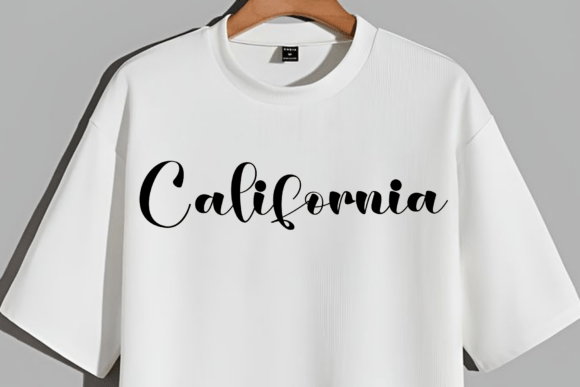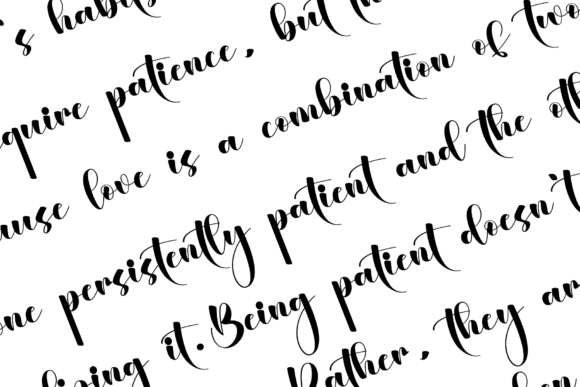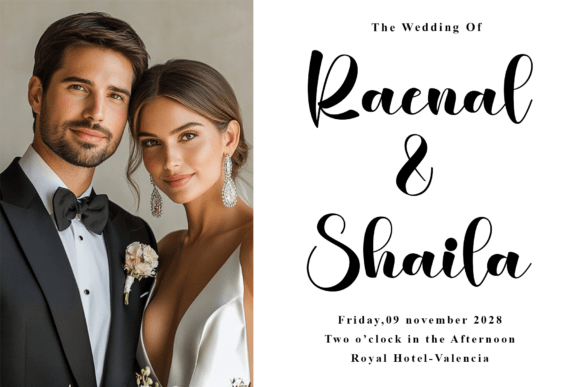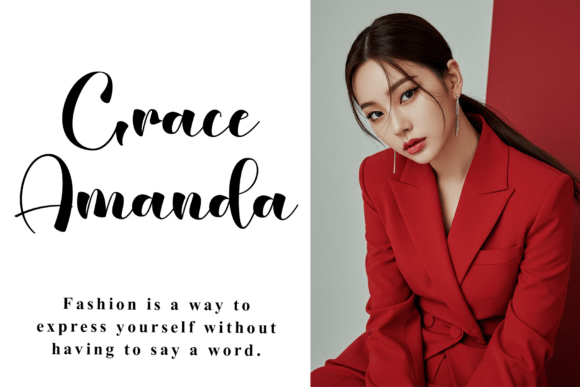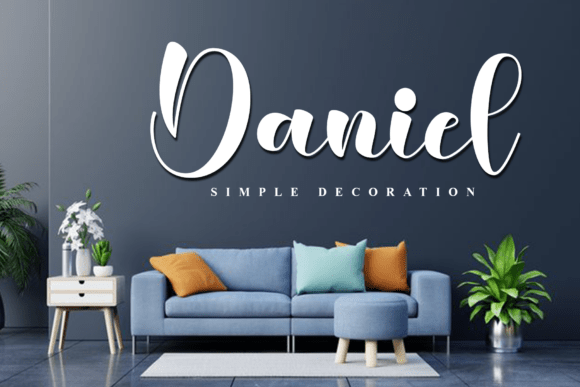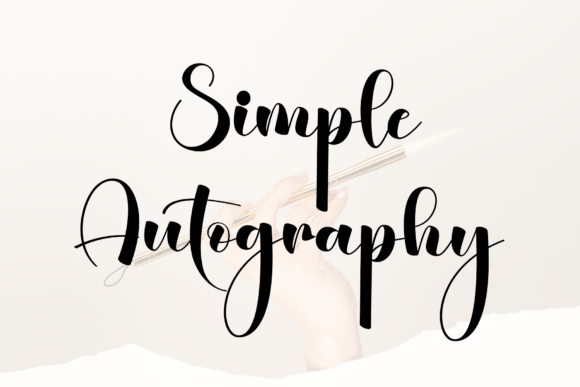
Introducing Darkline Font: The Epitome of Luxurious Handwritten Elegance
In the realm of typography, few fonts manage to convey the perfect blend of elegance, confidence, and professionalism. Darkline Font is one such exceptional typeface that effortlessly exudes sophistication and refinement. This luxurious handwritten script font is meticulously crafted to make a lasting impression, making it an ideal choice for upscale branding, wedding invitations, beauty packaging, and signature-style logos.
The Characteristics of Darkline Font
Darkline Font boasts smooth curves, high-contrast strokes, and graceful swashes that collectively contribute to its majestic appearance. The fluidity of its handwritten strokes gives it a personal touch, while the high contrast between thick and thin lines adds a level of sophistication that’s hard to match. The inclusion of elegant swashes further enhances its decorative appeal, allowing designers to add a touch of flair to their creations.
Perfect Balance of Modern Sophistication and Handwritten Charm
What sets Darkline apart is its ability to strike the perfect balance between modern sophistication and handwritten charm. In an era where digital designs often lean towards minimalism, Darkline offers a refreshing departure with its luxurious feel. It’s a font that understands the nuances of high-end design, making it suitable for projects that demand a level of refinement and poise.
Darkline Font’s versatility is one of its most compelling attributes. Whether you’re tasked with creating a high-end visual identity, crafting beautiful wedding invitations, designing packaging for a beauty brand, or conceptualizing a signature-style logo, Darkline proves to be an invaluable asset. Its adaptability ensures that it can be seamlessly integrated into various design projects, always lending an air of elegance and sophistication.
PUA-Encoded for Ease of Use
Understanding the needs of designers, Darkline Font comes PUA-encoded. This feature allows for effortless access to all glyphs, swashes, and alternate characters, making the design process smoother and more efficient. The PUA encoding ensures that users can easily navigate through the font’s extensive features without any hassle, thereby streamlining the creative process.
Adding Refinement to Your Designs
For designers and crafters looking to elevate their work, Darkline Font is a treasure trove of creative possibilities. Its unique blend of elegance and personality means that it can transform even the most basic designs into something truly remarkable. Whether you’re working on a personal project or a client’s brief, Darkline provides the tools to add a touch of luxury and refinement.
Why Choose Darkline Font?
- Luxurious and Elegant: Darkline offers a level of sophistication that’s perfect for high-end branding and designs that demand elegance.
- Versatile: Suitable for a wide range of design applications, from wedding invitations to beauty packaging and logo design.
- Easy to Use: PUA-encoded for easy access to glyphs, swashes, and alternate characters.
- Unique Handwritten Charm: Combines modern sophistication with the personal touch of handwritten typography.
Darkline Font stands out as a premier choice for designers and crafters seeking to infuse their projects with luxury, elegance, and professionalism. Its unique characteristics, versatility, and ease of use make it an indispensable tool in the world of design. Whether you’re aiming to create a lasting impression with a high-end visual identity or simply looking to add a touch of refinement to your designs, Darkline Font is poised to deliver with poise and personality.